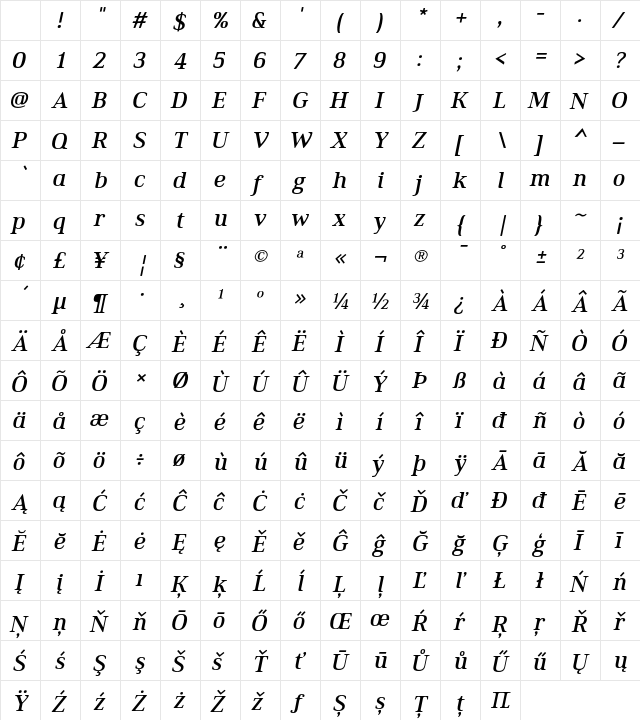
Ethos is a composed and adaptable typeface that performs quietly and consistently across a wide range of design contexts. The slanted form adds forward momentum and visual energy.
Pro Tip: Use Ethos for emphasis, pull quotes, and subheadings where its slanted energy can add rhythm to the layout.